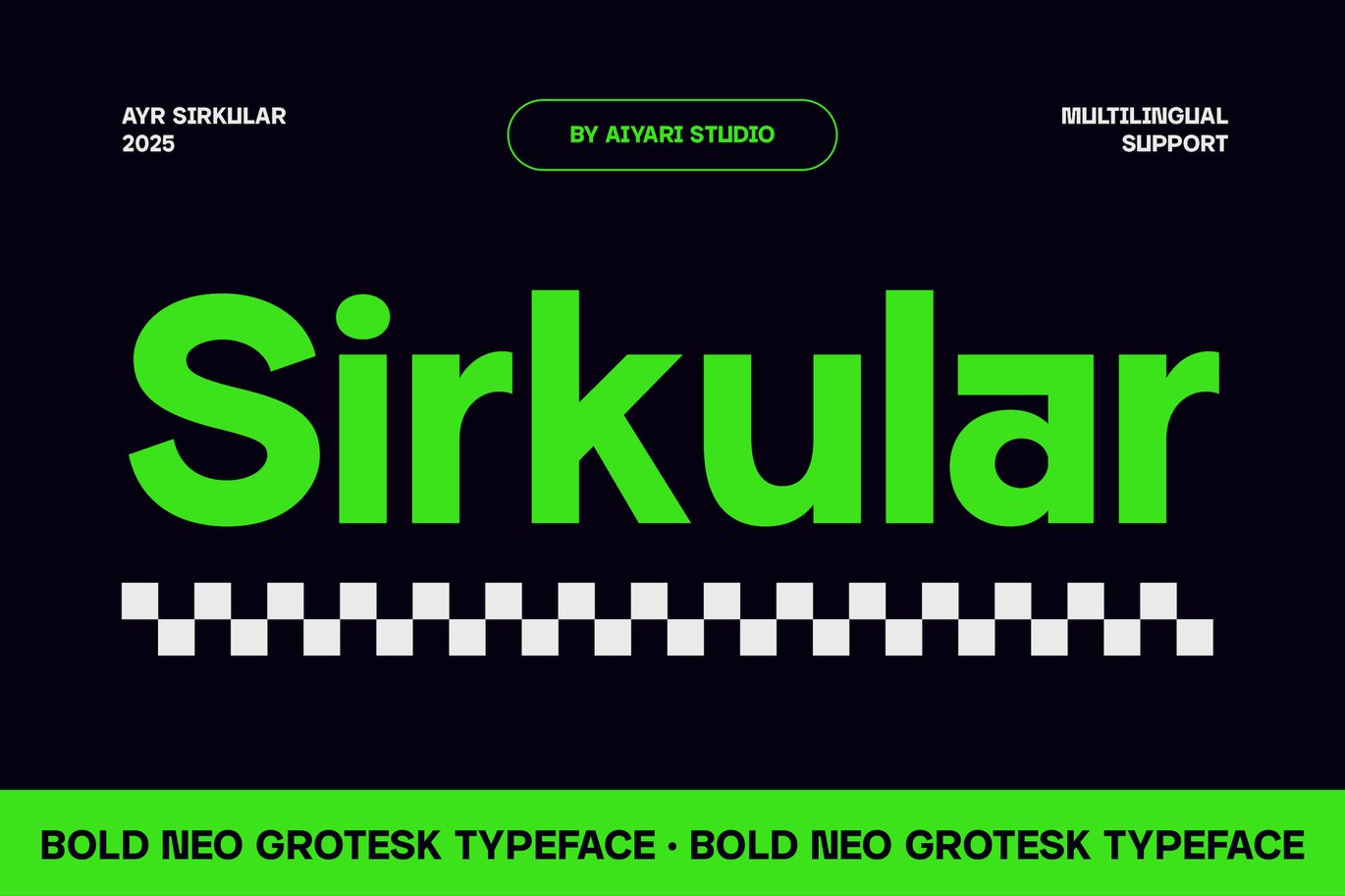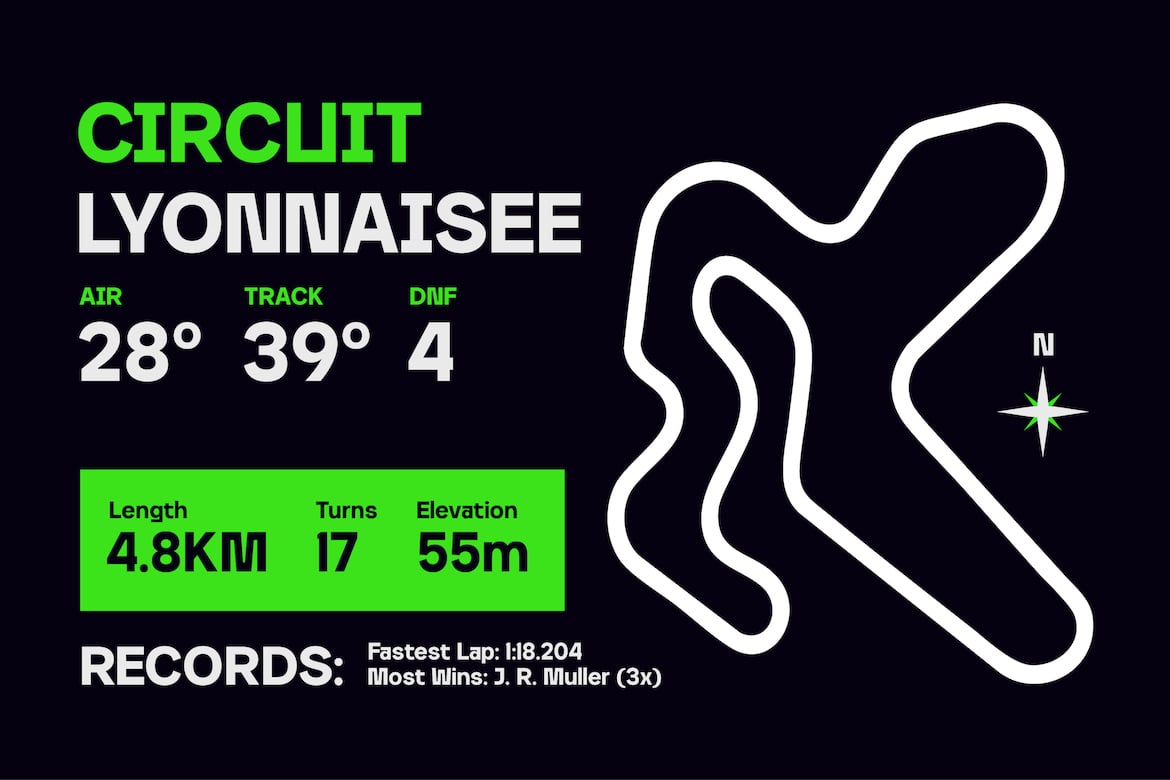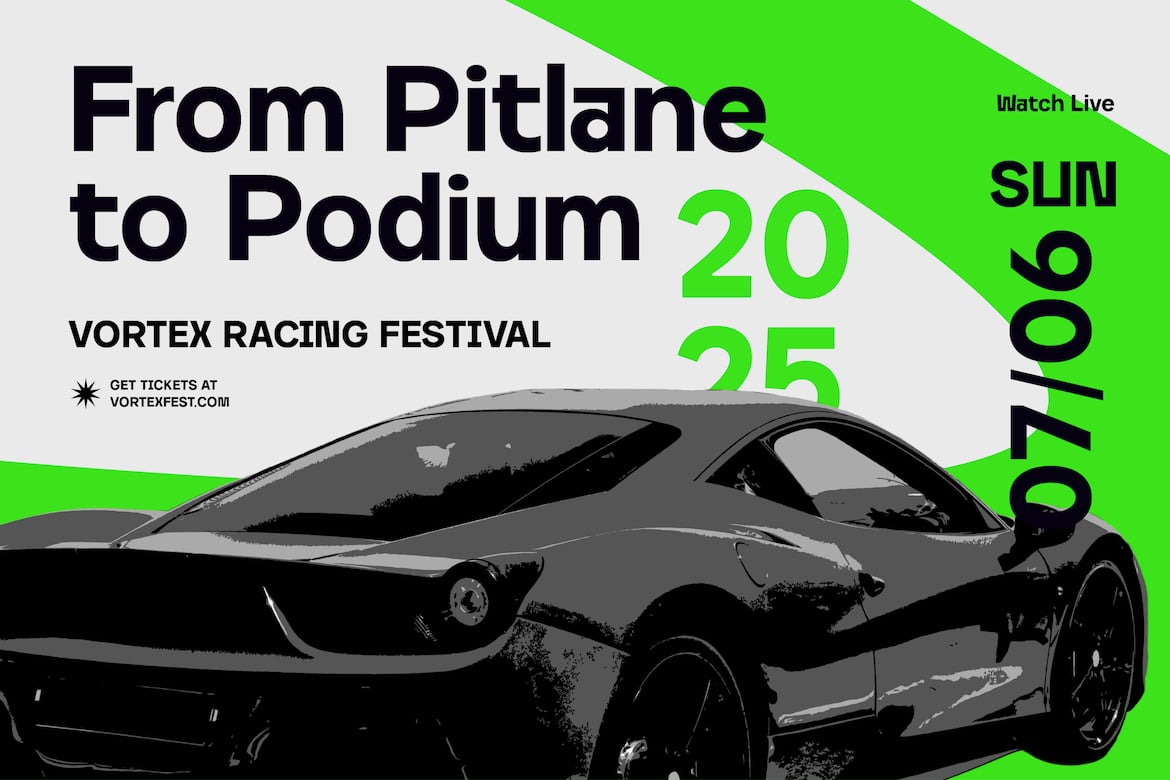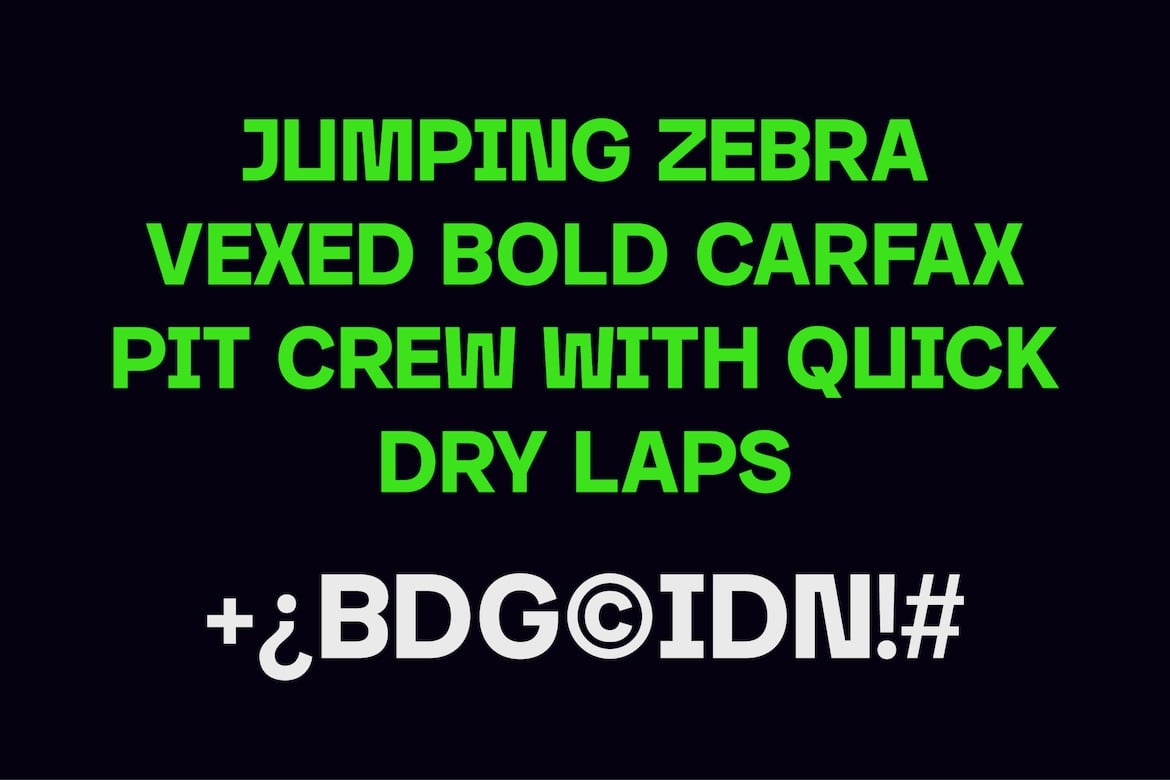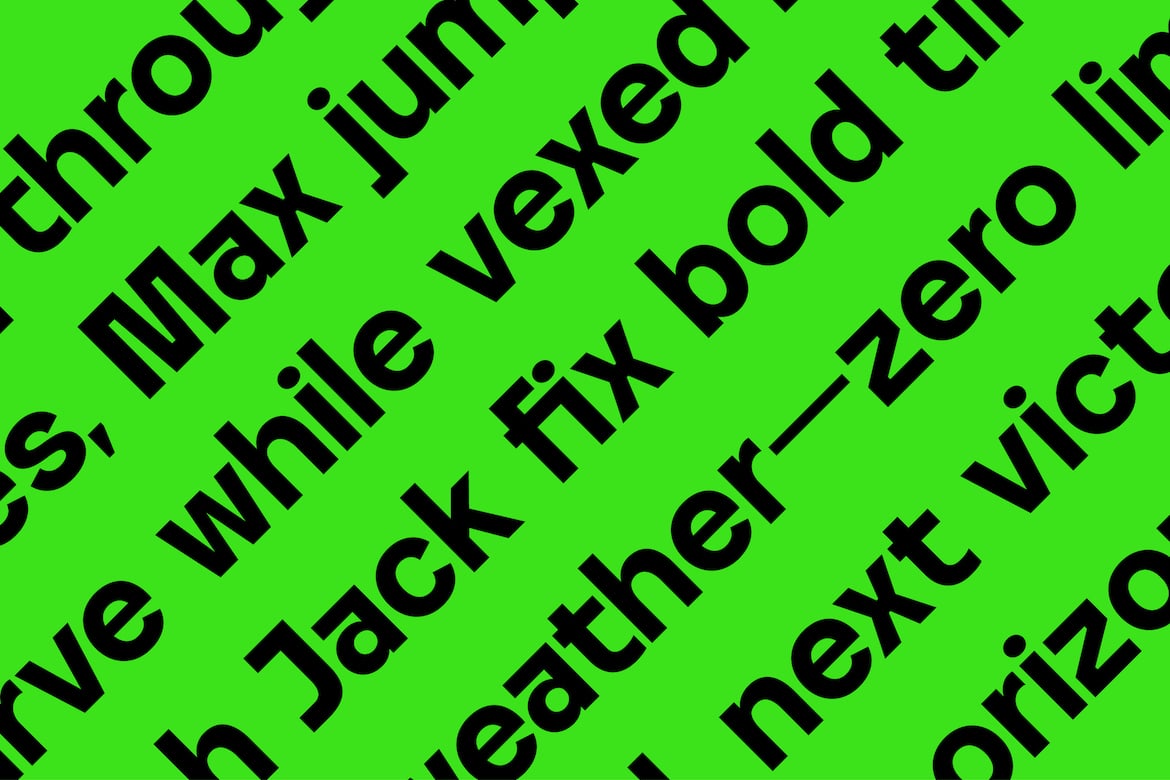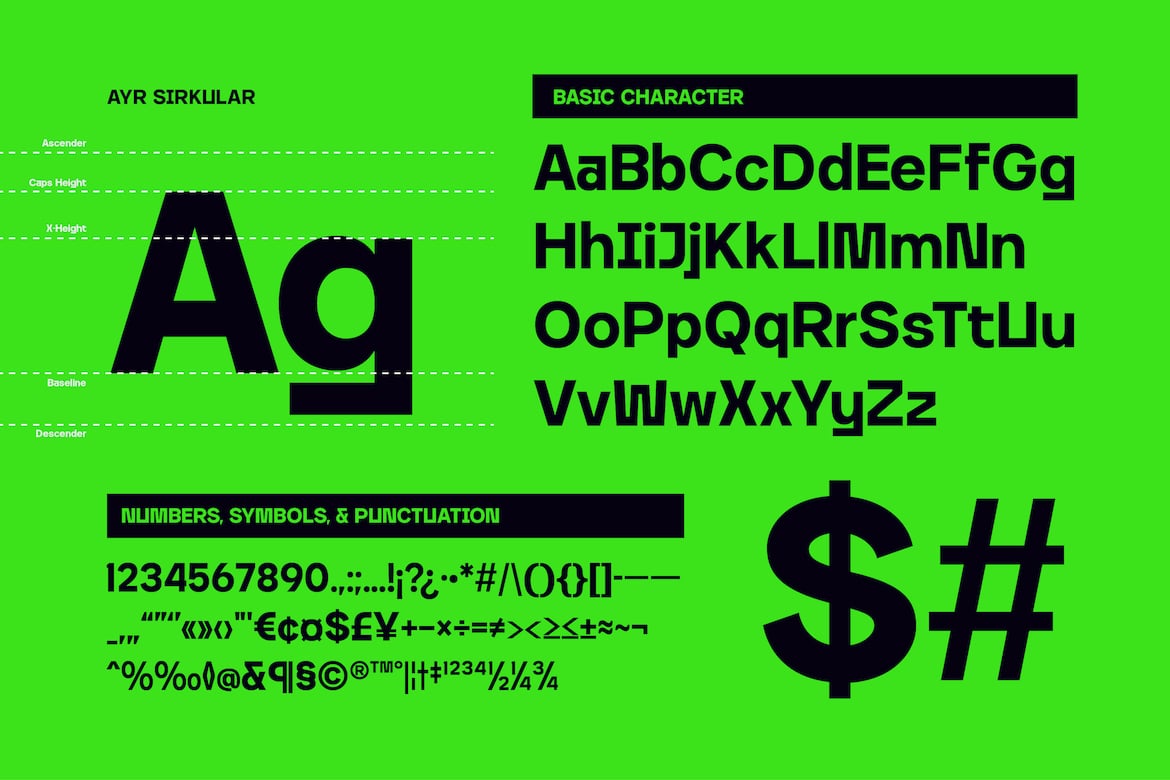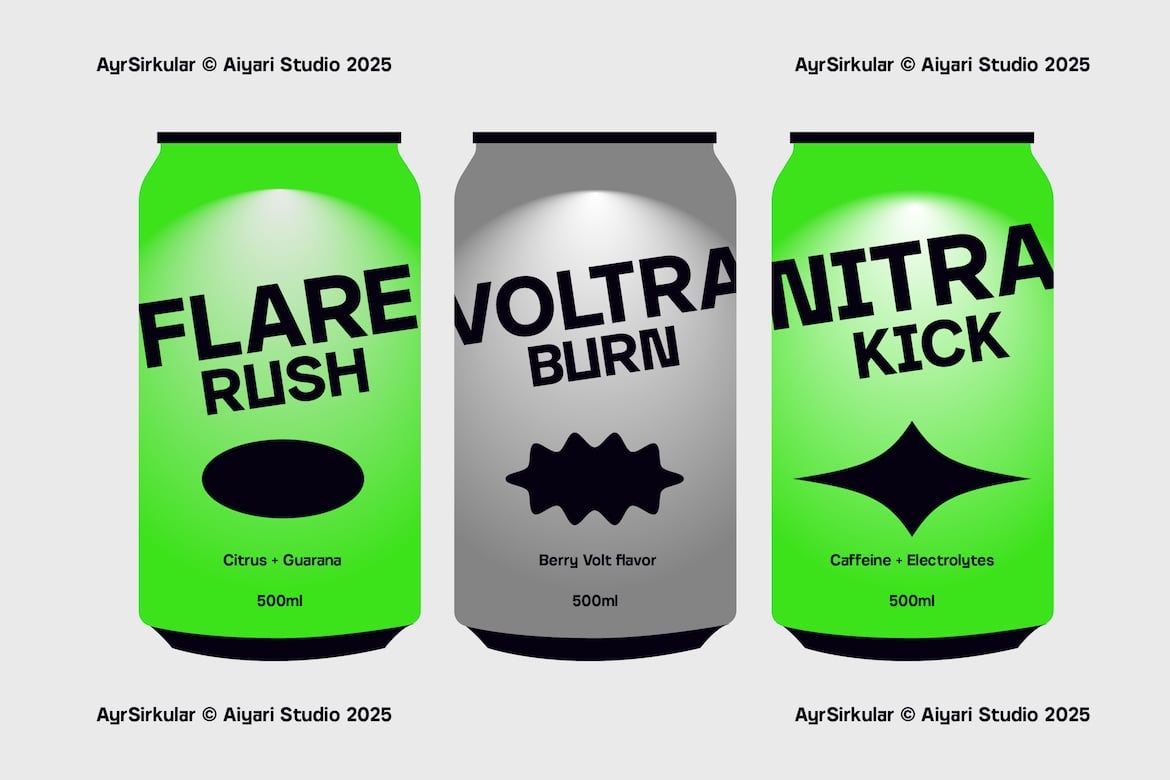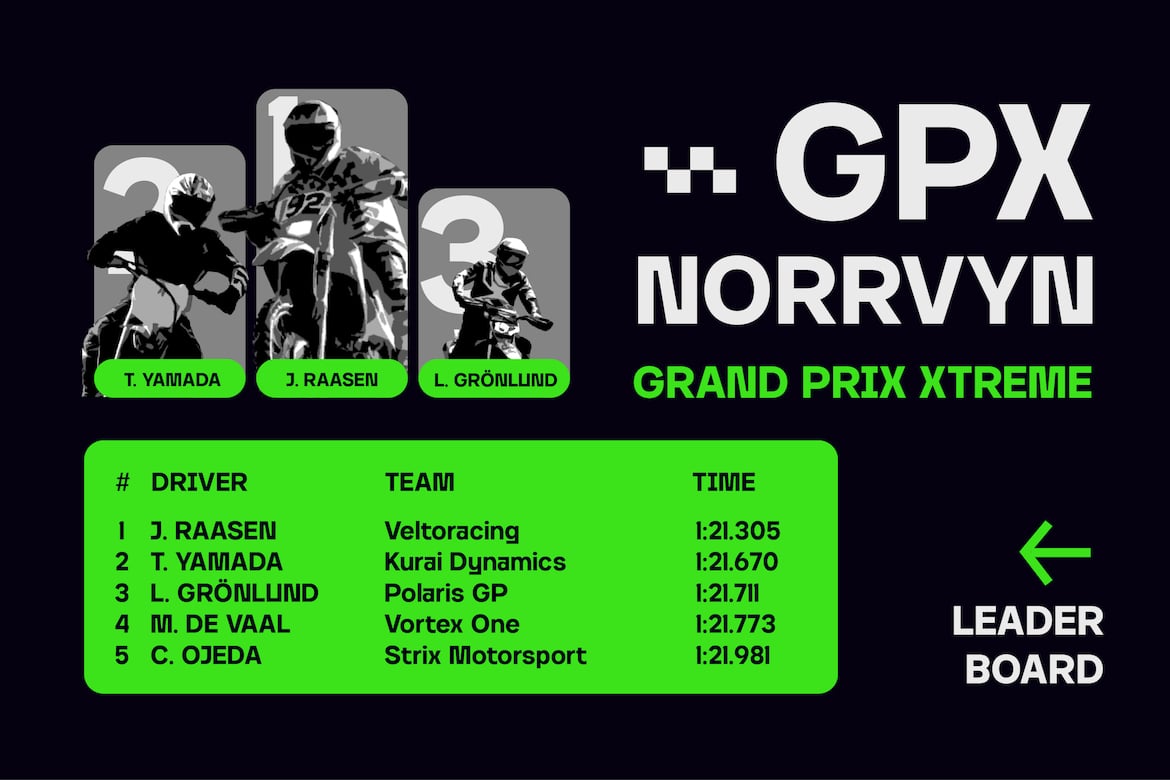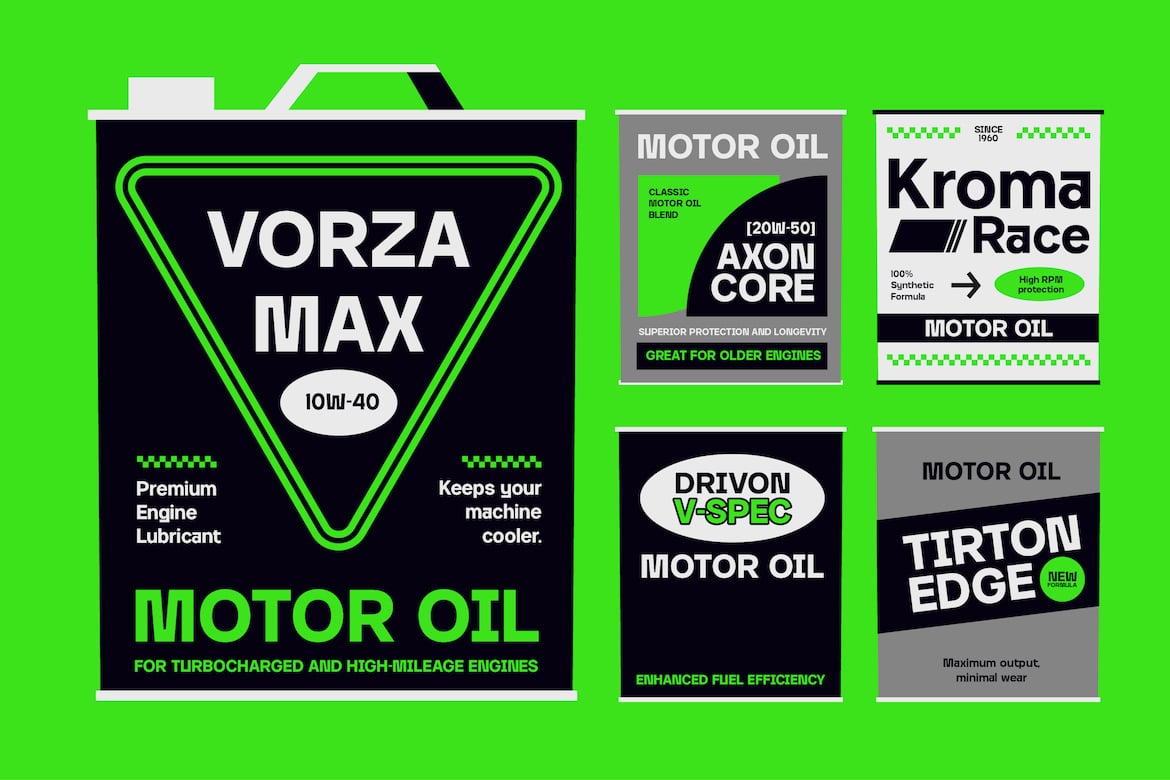
Sirkular
Sirkular is a bold neo-grotesk typeface with geometric precision and modernist roots. Built on a modular foundation with clean lines and consistent shapes, Sirkular delivers clarity and control in every letterform. It combines the rational spirit of Swiss design with a slightly friendlier tone.
Sirkular offers versatility for branding systems, editorial layouts, packaging, posters, and user interfaces. The bold weight ensures a commanding presence without sacrificing legibility — perfect for headlines, logos, or digital environments that demand modern sophistication.
Sirkular is a go-to choice for designers seeking a fresh take on the grotesk tradition, structured, and undeniably contemporary.